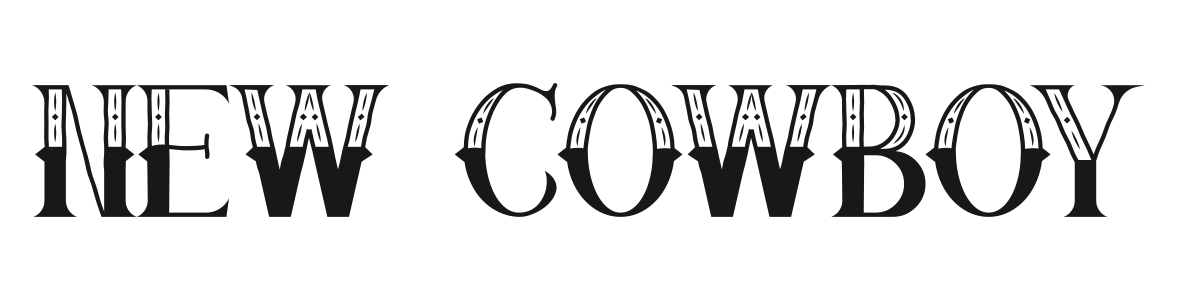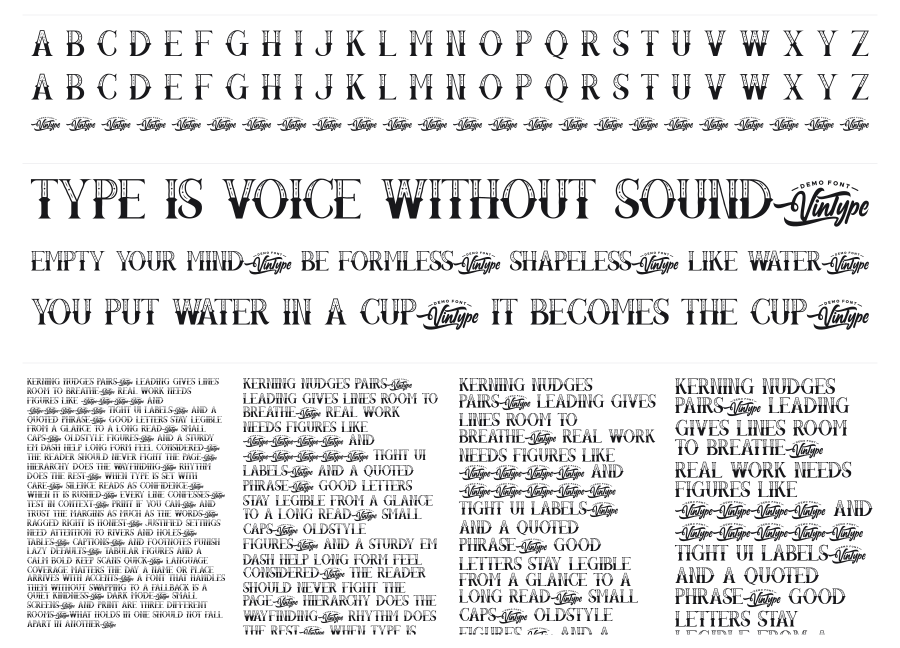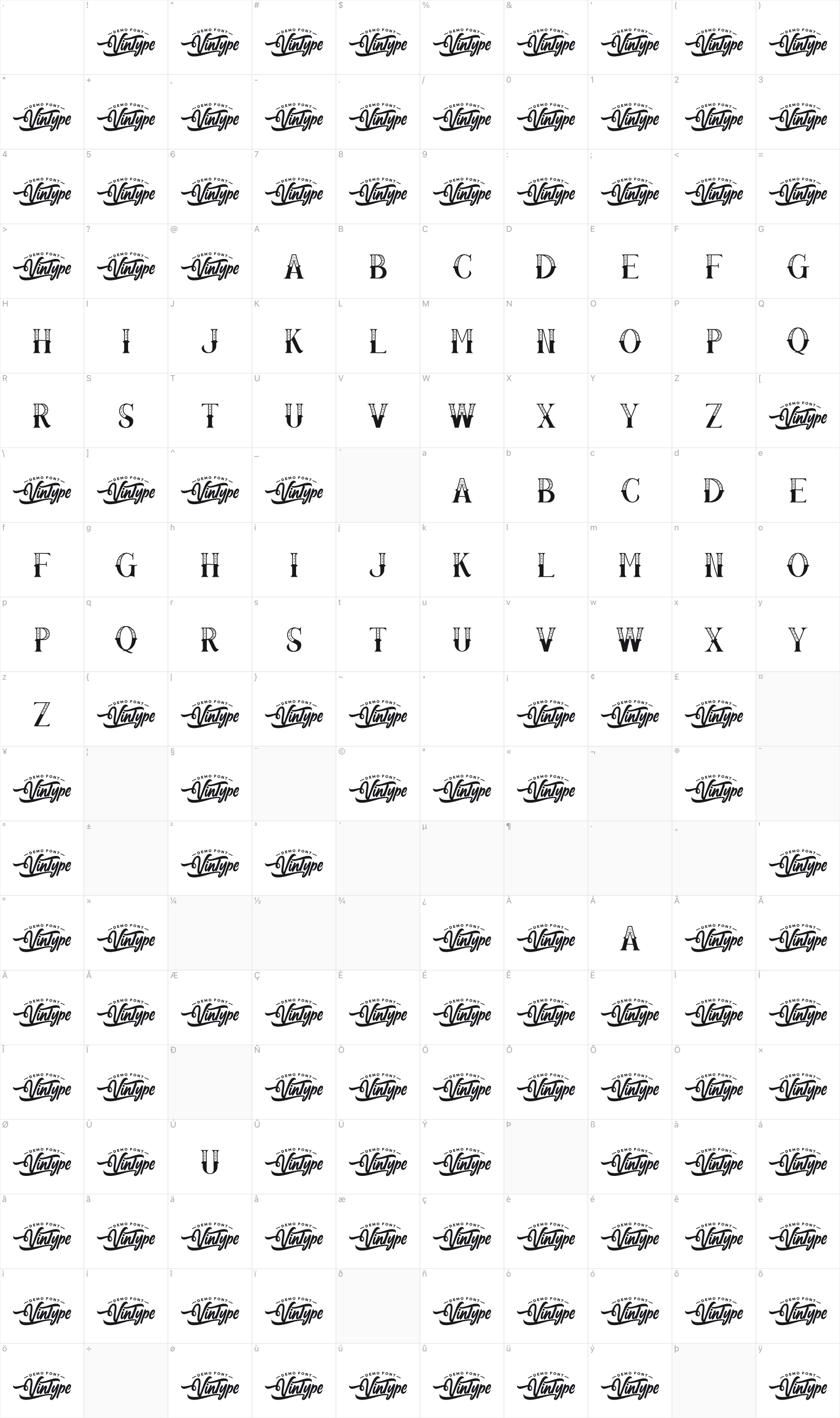
New Cowboy
New Cowboy is a condensed Victorian display serif built around the tall, narrow proportions and inline stem decoration of classic 19th-century wood type. The heavy strokes are split by a thin vertical channel that gives the letters a carved, three-dimensional presence at large sizes. It channels saloon signs, circus posters, and frontier-era typography with confident authority.